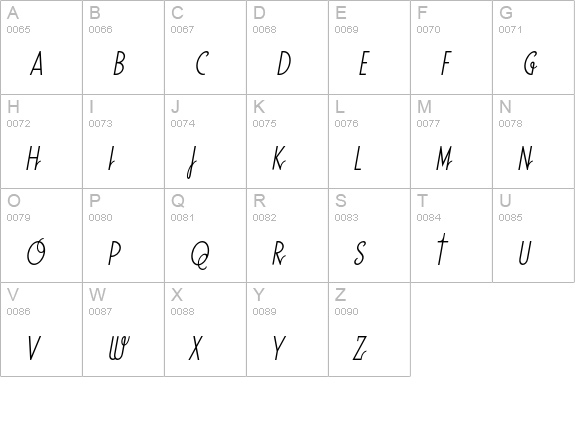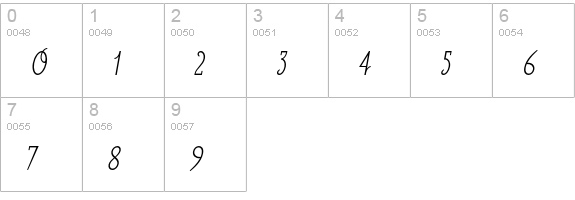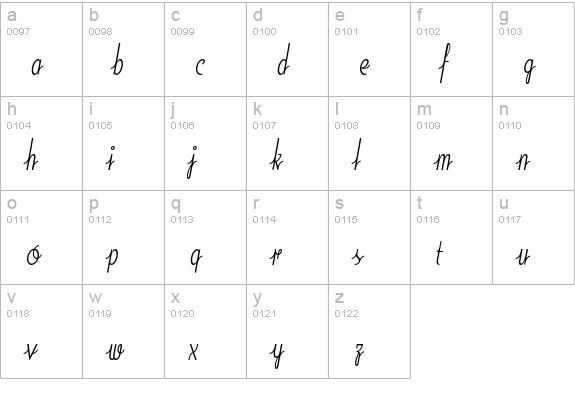
SodaScriptLight Font Details
Introducing SodaScriptLight, a beautifully crafted font that exudes elegance and sophistication. This versatile typeface is perfect for adding a touch of personality and charm to your designs. With its delicate strokes and graceful curves, SodaScriptLight is sure to captivate and mesmerize the eye. But what sets SodaScriptLight apart from other fonts? It's the fact that it is free! Yes, you read that right. This incredible font is freely available to download at FontsMarket.com. We believe that great design should be accessible to all, and that's why we have made SodaScriptLight available to everyone, completely free of charge. Whether you're designing invitations, logos, or any other creative project, SodaScriptLight will effortlessly elevate your work to new heights. Its clean and legible letterforms make it a breeze to read, while its subtle yet distinctive details add a touch of character and uniqueness. In addition to its aesthetic appeal, SodaScriptLight also boasts impeccable versatility. It seamlessly blends with a variety of design styles and can be easily paired with other fonts to create captivating compositions. From modern and minimalist to vintage and whimsical, SodaScriptLight effortlessly adapts to any design concept you have in mind. Unlock the potential of your creative projects with SodaScriptLight. Download this incredible font for free at FontsMarket.com and let your imagination soar. Whether you're a professional designer or a hobbyist, SodaScriptLight is the perfect addition to your font collection. Don't miss out on this opportunity to enhance your designs with a font that is not only visually stunning but also freely available to all.